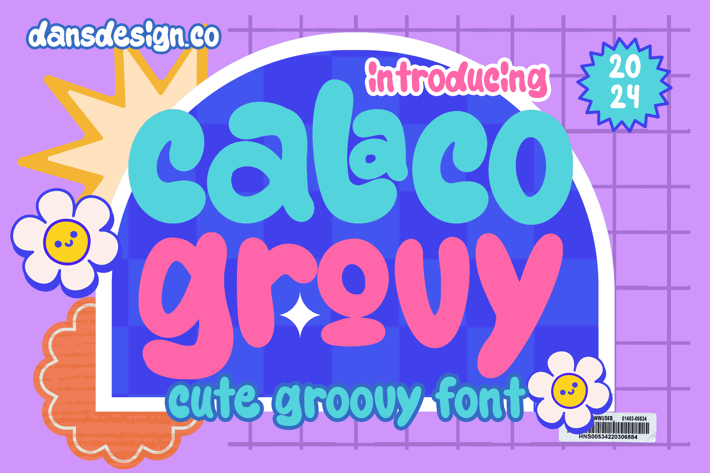
Calaco Grouvy Graffiti Modern Font
Calaco Grouvy Graffiti Modern Font a distinct, highly detailed. Graffiti Grovy Display Font.
It would make a great choice for exquisite retro-urban designs, business branding, logos, Apparel designs, and more.